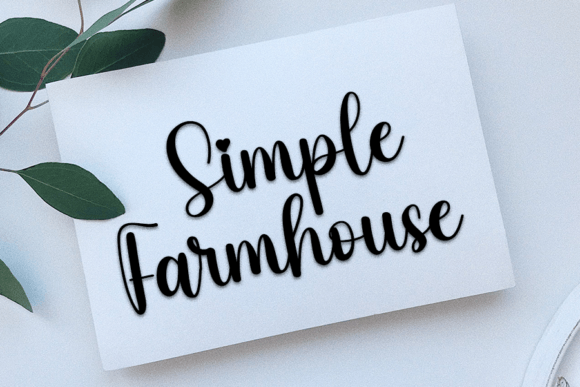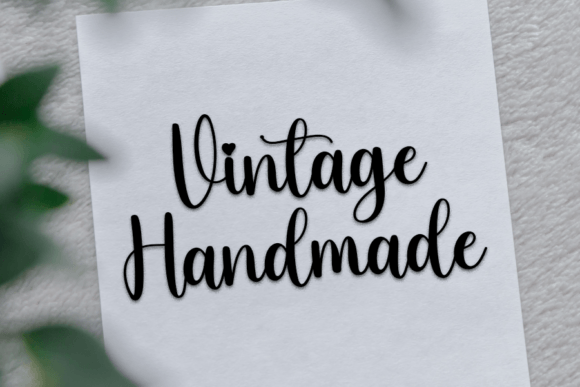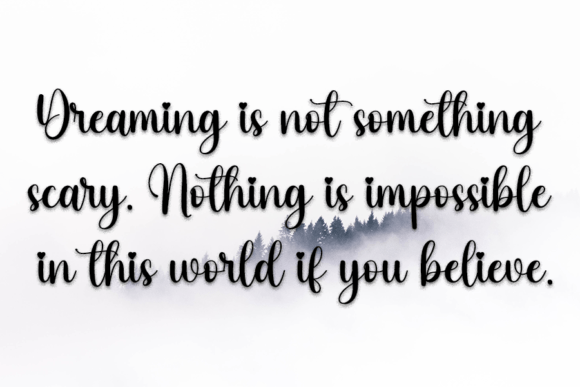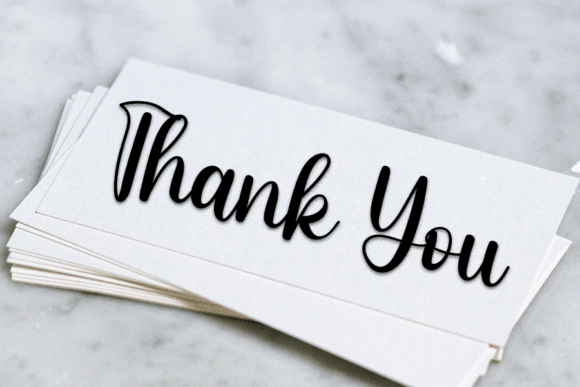
Introducing Amida Font: Elevate Your Design with a Delicate Handwritten Touch
In the world of typography, fonts play a crucial role in conveying the tone and personality of a design. For crafters, designers, and DIY enthusiasts, finding the perfect font can make all the difference in creating visually appealing and engaging projects. This is where Amida Font comes into play – a delicate handwritten font carefully crafted for a cool and unique design.
What is Amida Font?
Amida Font is a beautiful, hand-crafted typeface designed to add a touch of elegance and sophistication to various design projects. This font is perfect for those who want to create a distinctive and eye-catching look without compromising on readability. With its delicate strokes and unique character set, Amida Font is ideal for a wide range of applications, including:
- Writing letters and invitations
- Designing food product labels and packaging
- Crafting titles and headings for blogs, magazines, and websites
- Creating social media graphics and posts
- Developing branding materials, such as logos and business cards
Key Features of Amida Font
So, what makes Amida Font stand out from other handwritten fonts? Here are some of its key features:
- Delicate strokes: Amida Font boasts delicate, hand-drawn strokes that give it a unique and elegant feel.
- Unique character set: The font includes a wide range of characters, ensuring that you can create complex designs and phrases with ease.
- High readability: Despite its delicate nature, Amida Font remains highly readable, making it perfect for body text and captions.
- Cool and modern look: Amida Font has a distinctly modern and cool aesthetic, making it perfect for designs that require a fresh and youthful vibe.
How to Use Amida Font in Your Designs
Using Amida Font in your designs is incredibly easy. Here are some tips to get you started:
- Pair it with bold fonts: Combine Amida Font with bold, sans-serif fonts to create a striking contrast and add visual interest to your design.
- Experiment with colors: Amida Font looks stunning in a range of colors, from soft pastels to rich jewel tones. Don’t be afraid to experiment and find the perfect hue for your design.
- Add textures and patterns: Add an extra layer of depth to your design by incorporating textures and patterns that complement the delicate feel of Amida Font.
Why Designers and Crafters Love Amida Font
Amida Font has quickly become a favorite among designers and crafters, and for good reason. Here are some reasons why:
- Versatility: Amida Font can be used in a wide range of design projects, from digital graphics to print materials.
- Ease of use: The font is incredibly easy to use, even for those who are new to design.
- Unique look: Amida Font offers a distinctive and eye-catching look that sets it apart from more traditional fonts.